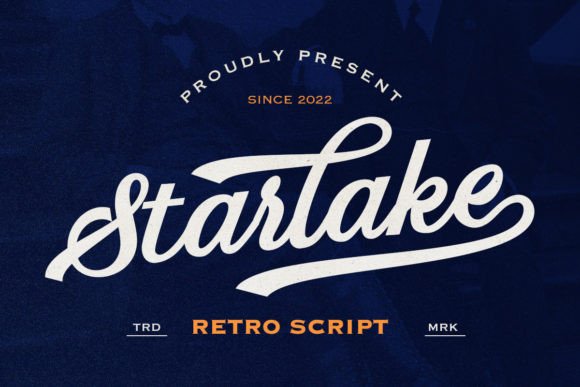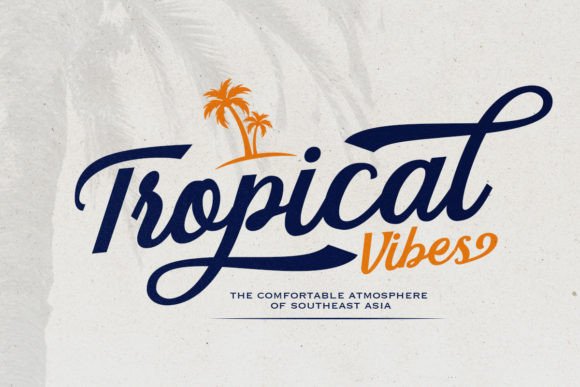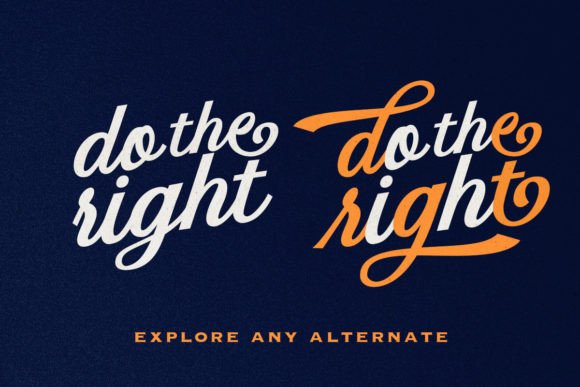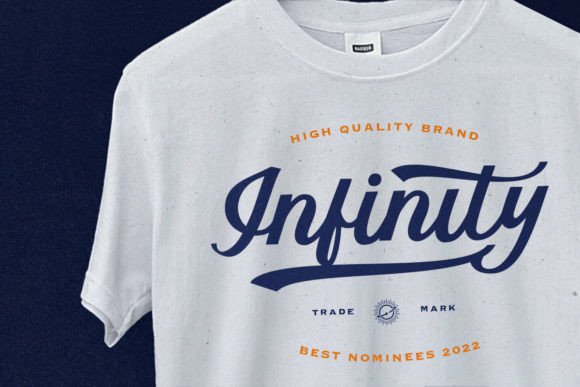
Starlake – Retro Script Font
About the Starlake – Retro Script Font
Meet Starlake – Retro Script Font, a stunning font that brings a touch of elegance and professionalism to any design. Starlake is a retro script with bunch of alternates that will make your project looks more stylish and stunning. With ending swash that will support the retro vibes. You can use this font for any designs such as logo, branding, apparel, and merchandise. This font also support multilingual!
Starlake – Retro Script Font Usage Examples
Starlake - Retro Script Font Example